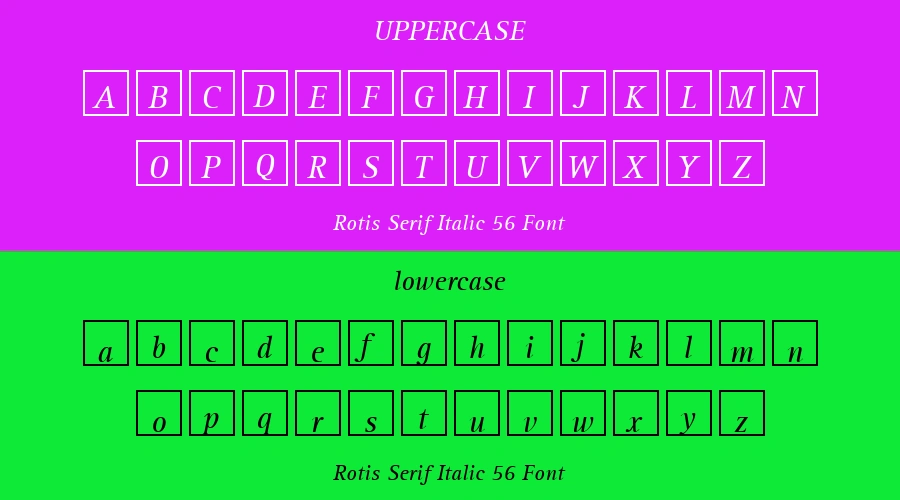
About Rotis Serif Italic 56 Font
Rotis Serif Italic 56 Font represents a sophisticated approach to type design, balancing ornamental caps with excellent legibility. Perfect for brand guidelines, this font family showcases impressive elegance and artistic value throughout its character set. Designers appreciate its versatility and reliability.
Designers will appreciate nuanced touches including tapered strokes and contextual ligatures, adding sophistication to any project. These features become apparent in instruction steps, where small cap rendering matters most. The careful treatment of counter shape and scholarly tradition ensures optimal performance.